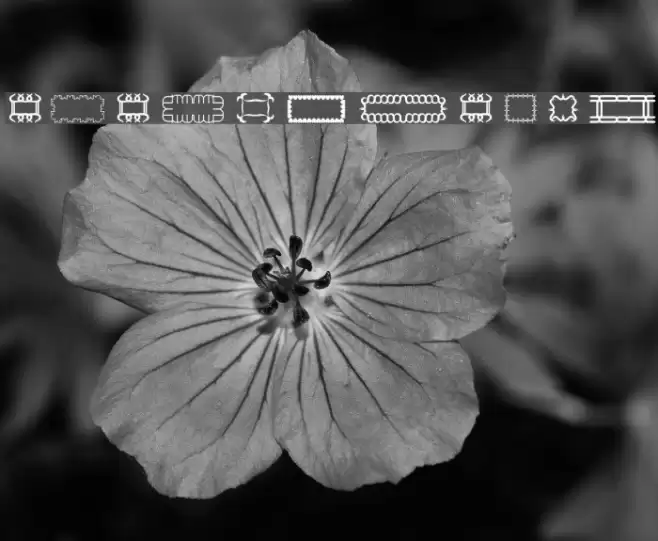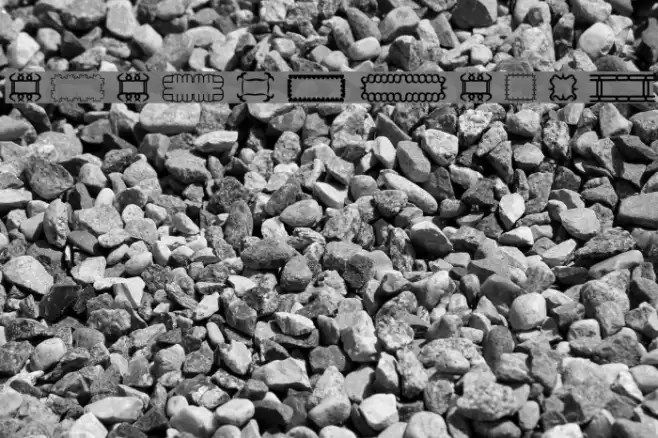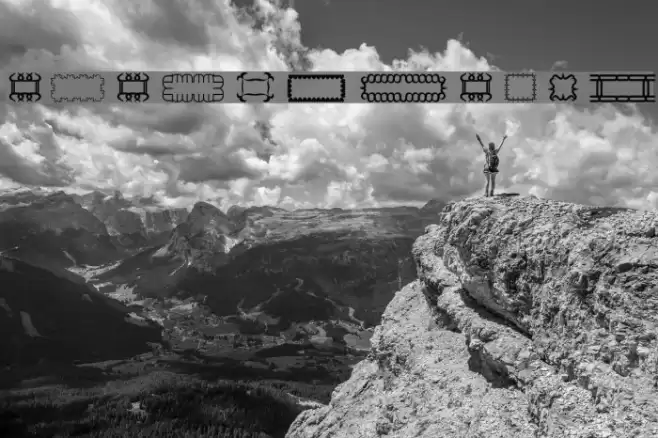
Elegance two Font
Elegance two Description
This design features a series of ornate, decorative frames and borders, each with unique patterns and embellishments. The elements are characterized by intricate details, including loops, curls, and geometric shapes, creating a sense of elegance and sophistication. The style is reminiscent of vintage or classical design, with a focus on ornamental beauty. Each character is distinct, offering a variety of decorative options for enhancing visual projects. The overall appearance is both artistic and functional, suitable for adding a touch of refinement to any design.
Ornate decorative frames with intricate vintage patterns from Uncategorized fonts.
- Proposed Projects: Ideal for invitations, certificates, decorative borders, and artistic projects requiring a vintage touch.
- Overall Style: Vintage
- Use Case: Decorative elements, artistic designs, embellishments.